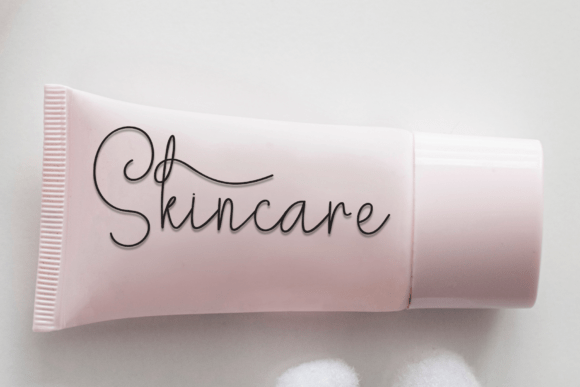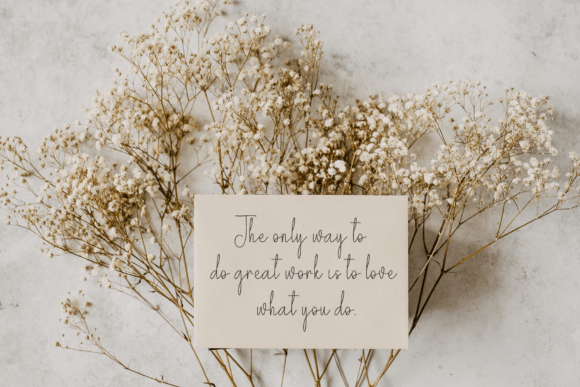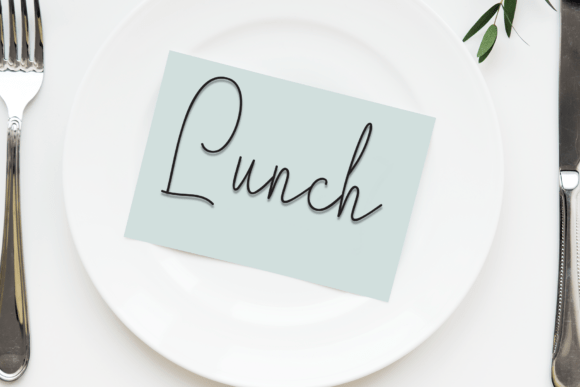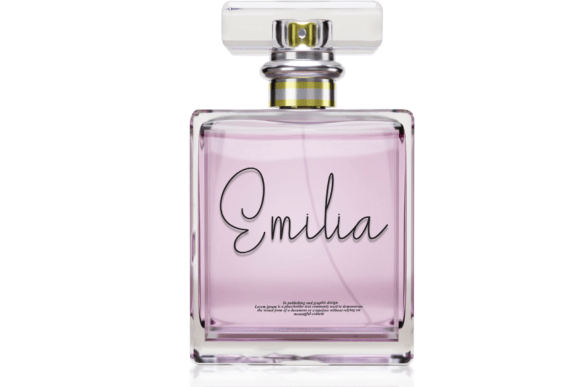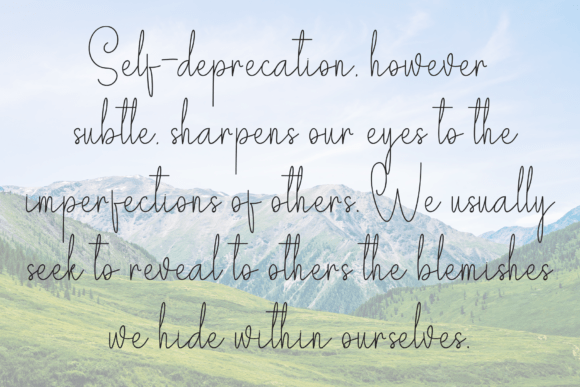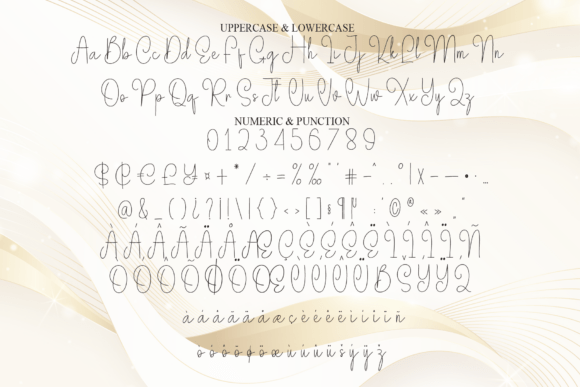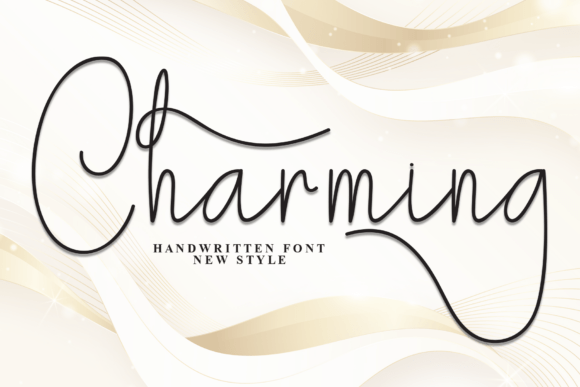
Introducing Charming Font: Elevate Your Designs with Elegance and Modern Flair
In the world of typography, few fonts manage to strike a balance between elegance and modernity as effortlessly as Charming. This stylish handwritten script font is designed to bring a touch of sophistication and warmth to any project, making it an ideal choice for designers and crafters looking to add a personal, refined touch to their work.
The Characteristics of Charming Font
Charming Font is distinguished by its flowing strokes and organic curves, which give it a unique, handcrafted feel. Unlike more traditional fonts, Charming combines classic elegance with a modern flair, making it versatile enough to be used in a wide range of applications, from branding and invitations to social media and digital marketing materials.
Its key features include:
- Flowing Strokes: The fluidity of Charming’s strokes gives it a dynamic, lively feel that captures attention and conveys a sense of movement.
- Organic Curves: The natural, curved lines of the font add warmth and a personal touch, making it perfect for projects where a human element is desired.
- Elegant and Modern: Charming strikes the perfect balance between sophistication and contemporary style, ensuring it stands out in any design.
Applications of Charming Font
The versatility of Charming Font makes it suitable for a variety of design projects. Here are some of the most popular applications:
- Branding: Use Charming Font to create a memorable brand identity that exudes elegance and approachability. Its unique style can help your brand stand out in a crowded market.
- Invitations: Whether you’re designing wedding invitations, event invites, or personal greeting cards, Charming Font adds a touch of class and sophistication that will leave a lasting impression.
- Social Media: Elevate your social media presence with Charming Font. It’s perfect for creating eye-catching posts, stories, and bios that reflect a refined and modern aesthetic.
- Digital Marketing: From website headers to email newsletters, Charming Font can enhance your digital marketing materials with its elegant and contemporary look.
Why Choose Charming Font?
Choosing Charming Font for your design projects comes with numerous benefits:
- Unique Style: In a sea of generic fonts, Charming offers a distinctive style that can set your designs apart.
- Versatility: Its adaptability makes it suitable for both digital and print projects, offering flexibility in your design work.
- Emotional Connection: The warmth and elegance of Charming Font can help create an emotional connection with your audience, enhancing the impact of your message.
Tips for Using Charming Font Effectively
To maximize the impact of Charming Font in your designs, consider the following tips:
- Pair it Wisely: Combine Charming Font with complementary fonts to create visual interest and hierarchy in your designs.
- Adjust Size and Weight: Experiment with different sizes and weights to ensure readability and to emphasize key messages.
- Use it Sparingly: While Charming Font is beautiful, using it sparingly can make it more impactful. Consider using it for headings or key phrases.
Charming Font is a powerful tool for designers and crafters looking to infuse their projects with elegance, modernity, and a personal touch. Its unique blend of flowing strokes and organic curves makes it an excellent choice for a wide range of applications, from branding and invitations to social media and digital marketing. By incorporating Charming Font into your design repertoire, you can create stunning, memorable pieces that resonate with your audience.
Whether you’re aiming to elevate your brand’s presence, create beautiful invitations, or simply add a refined touch to your digital content, Charming Font is sure to bring your designs to life with its effortless charm and sophistication.